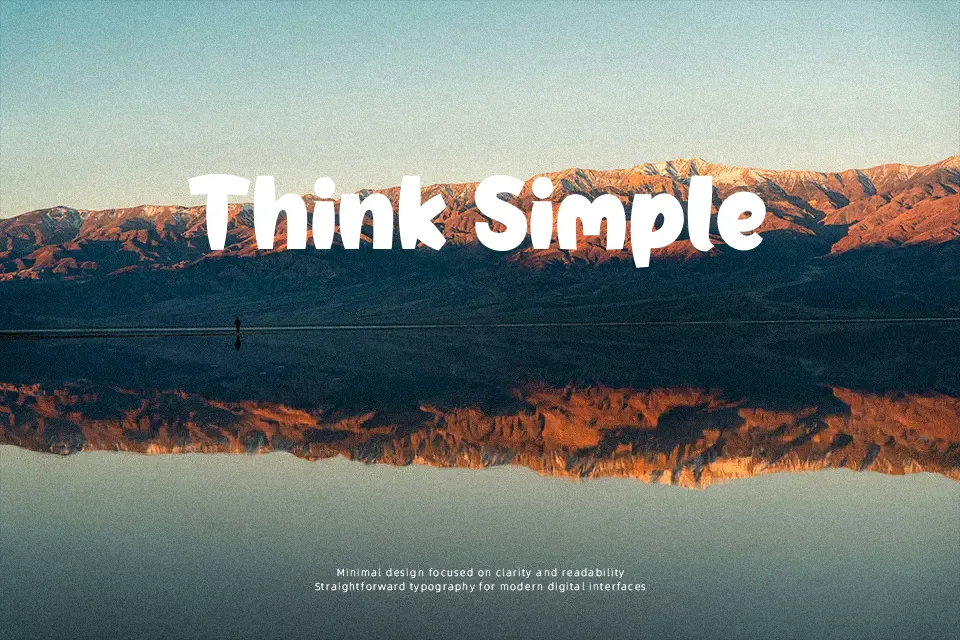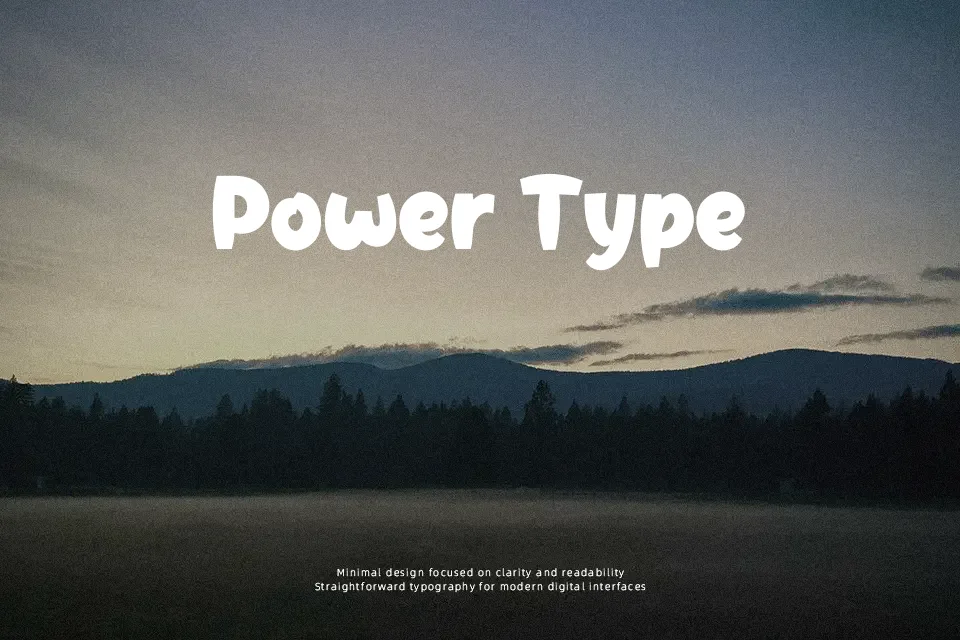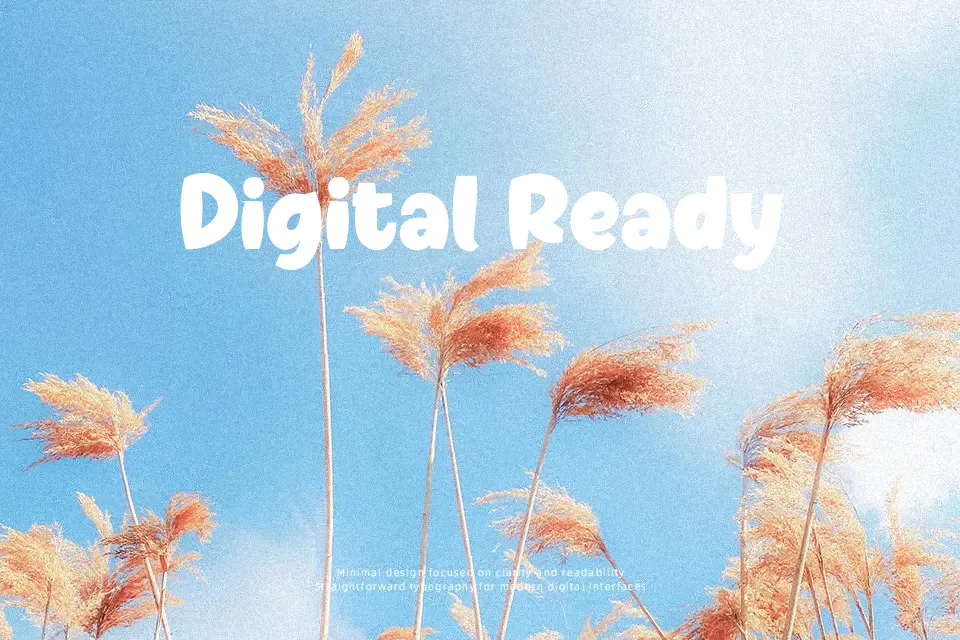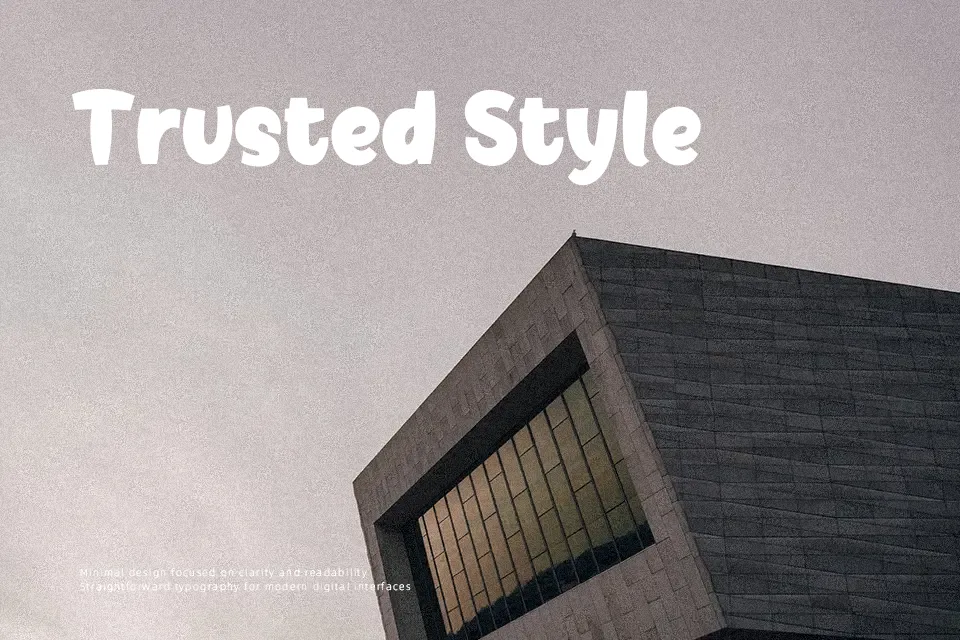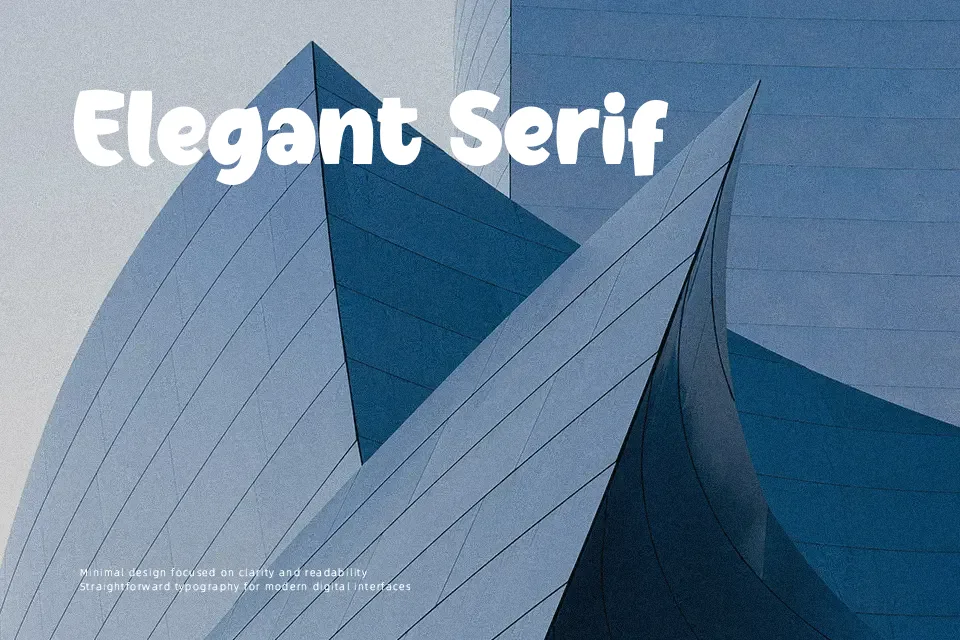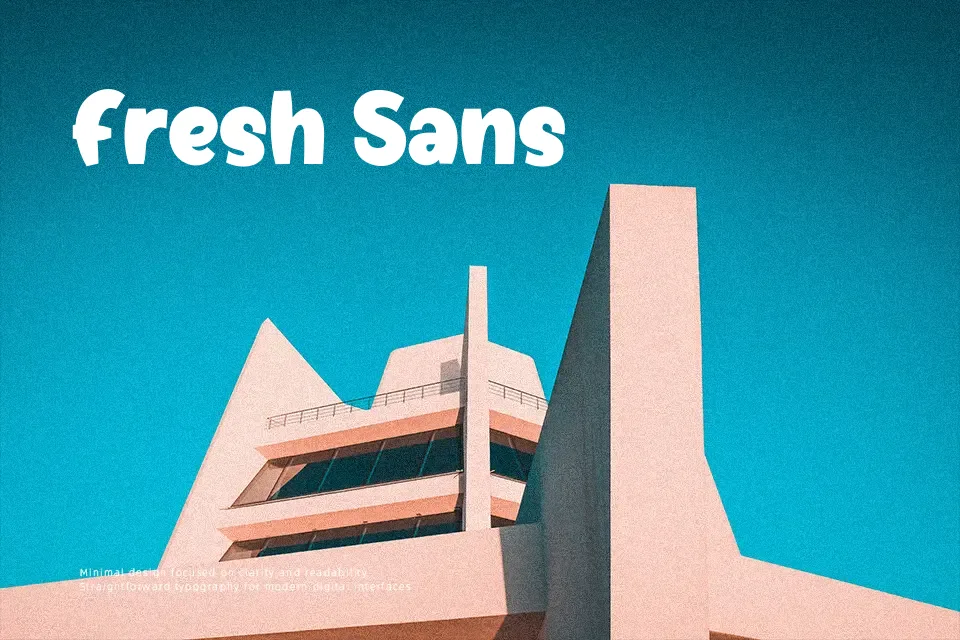
Star Player Font
Star Player Font delivers a punchy visual rhythm through its chunky letterforms, soft outer contours, and pronounced cartoon styling. The typeface relies on uniform heavy strokes with minimal contrast, giving each glyph a solid and bouncy presence. Generous character widths pair with tight yet deliberate spacing, allowing headlines to lock together seamlessly in large formats. At prominent sizes, the letterforms remain distinct and readable across casual branding assets, children’s book headings, and animated stream overlays. However, the thick structure causes interior counters to fill in at reduced scales, making the design unsuitable for extended body text or compact interface labels.
Best For: children’s book covers, mobile game titles, cartoon poster headlines, toy packaging
Not Ideal For: continuous body text, corporate annual reports, small user interface captions, legal documentation